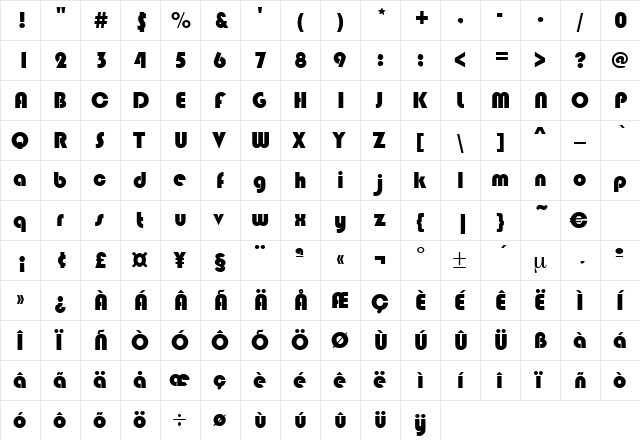
Vanadin Regular Font Preview
Vanadin Regular
Vanadin Regular Font Details
Design Context for Vanadin Typeface
Vanadin is a composed and adaptable typeface that performs quietly and consistently across a wide range of design contexts.